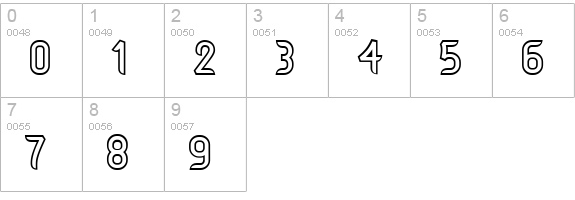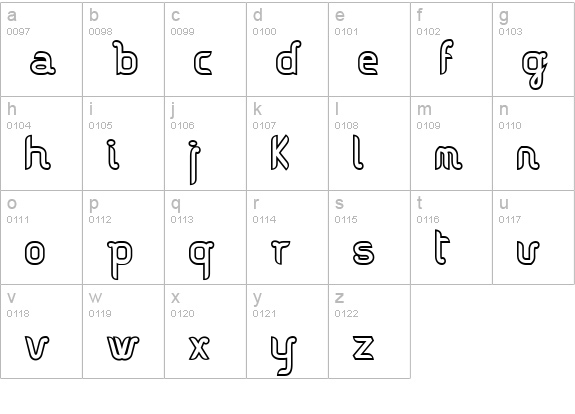
Vague-Outline Font Details
Introducing the Vague-Outline font, a captivating typeface that effortlessly combines elegance with a touch of modernity. This font is perfect for those seeking a versatile and eye-catching option for their creative projects. With its delicate outlines and gentle curves, Vague-Outline captures a sense of sophistication and refinement, making it ideal for a wide range of design applications. Whether you are designing a logo, creating a stunning headline, or crafting an impressive presentation, Vague-Outline offers a unique and distinctive look that is sure to make a lasting impression. Its clean lines and graceful strokes add an element of intrigue and allure to any piece of work, making it stand out from the crowd. One of the most remarkable aspects of Vague-Outline is that it is freely available to download at FontsMarket.com. This means that you can enjoy the benefits of this exquisite font without any cost, making it an incredible asset for both personal and commercial projects. With its seamless compatibility across various platforms and devices, you can unleash your creativity and bring your visions to life effortlessly. Vague-Outline font brings a sense of freedom and flexibility to your design journey. Its versatility allows you to explore endless possibilities, experimenting with different sizes, colors, and compositions to achieve the desired effect. Whether you want to create a bold statement or convey a subtle message, this font provides you with the tools to express yourself with finesse and flair. So why wait? Embrace the elegance, sophistication, and freedom that Vague-Outline font offers. Download it today for free at FontsMarket.com and elevate your design projects to new heights. With its timeless appeal and limitless potential, this font is a must-have for any creative enthusiast or professional designer. Unleash your imagination and let Vague-Outline font guide you towards extraordinary design possibilities.